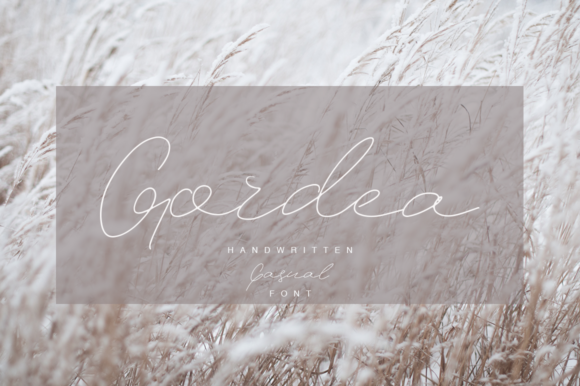
Step into the world of Gordea Font, a modern script font family designed to add a touch of elegance and charm to your creative projects. Each letter is meticulously crafted to ensure a captivating visual appeal that leaves a lasting impression.
Indulge in the expressive nature of Gordea Font, where each character dances across the page with a fluidity that captures the eye. Its timeless design transcends trends, making it a versatile choice for a wide range of projects, from heartfelt wedding invitations to striking logos that command attention.
With Gordea Font, your words become art. Whether you're a graphic designer seeking to create captivating visuals, a photographer looking to elevate your images, or a blogger seeking a distinctive touch for your headers, this font family is your muse. It effortlessly adds a layer of sophistication and creativity that sets your work apart.
Embrace the boundless possibilities of Gordea Font and unlock your creative potential. Let its graceful curves and delicate strokes transform your projects into visually stunning masterpieces that leave an indelible mark. Experience the magic of this modern script font and elevate your creative journey to new heights.